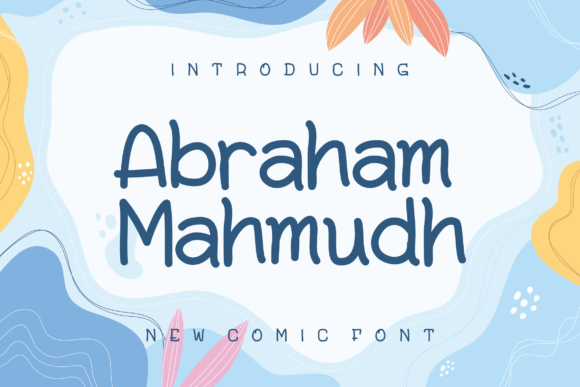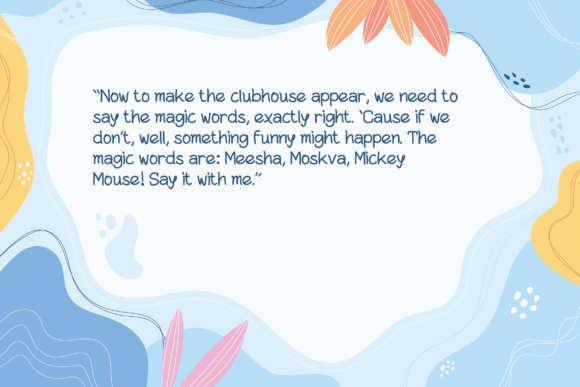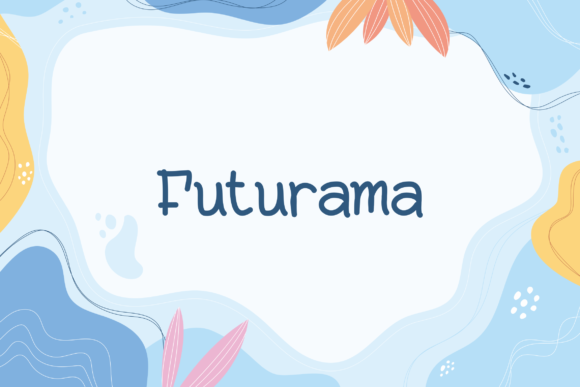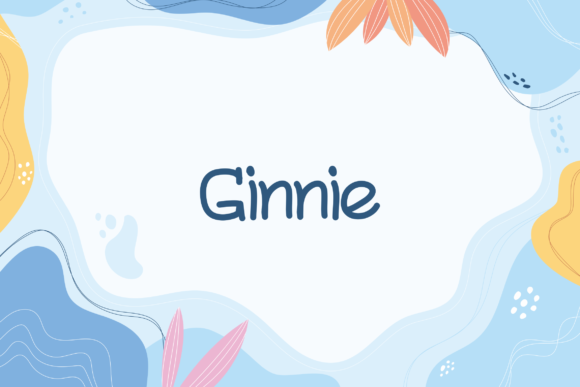
Abraham Mahmudh Font
About Abraham Mahmudh Font
Introducing “Abraham Mahmudh,” an original handwritten font designed to add a personal and unique touch to a variety of creative projects. This font is perfect for templates and presentations, books, gifts, packaging, name tags, and a wide range of applications where a distinctive handwritten style is desired.
Abraham Mahmudh stands out as an authentic and original choice for bringing a handcrafted feel to your designs. Its handwritten aesthetic adds a touch of warmth and individuality, making it well-suited for projects that require a personal and genuine touch.
Whether you’re creating templates and presentations, designing books, or adding a special touch to gifts and packaging, Abraham Mahmudh becomes a versatile and reliable font. Its originality ensures that your projects stand out with a unique character, making an impression on your audience.
Consider using Abraham Mahmudh for name tags at events, where a personal and handwritten style can make attendees feel welcome and valued. Its adaptability allows it to enhance a wide range of creative endeavors, making it a valuable asset in your design toolkit.
In essence, Abraham Mahmudh is not just a font; it’s a design tool that brings an original and handwritten charm to your projects. Whether applied to templates, presentations, books, gifts, packaging, name tags, or any creative endeavor, Abraham Mahmudh adds a touch of authenticity that resonates with your audience. Choose this font to infuse your designs with a sense of personal connection and originality, turning each project into a uniquely crafted piece of art.